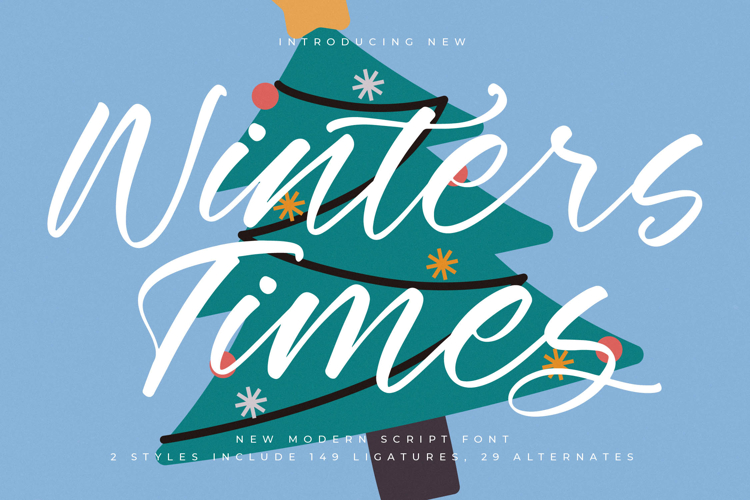
Winters Times - New Modern Script Font
Unleash a new realm of creative expression with Font Winters Times - New Modern Script Font Script, a truly captivating addition to any designer's toolkit. This modern script font exudes an undeniable sense of handcrafted elegance and fluid sophistication, transforming ordinary text into visually stunning artistry. Its natural, expressive flow and consistent, inviting strokes make it ideal for projects demanding a yet polished touch, ensuring your designs resonate with genuine warmth and style.
Experience unparalleled typographic flexibility with Font Winters Times - New Modern Script Font Script. Beyond its aesthetic appeal, this font comes loaded with rich typographic options, including an impressive collection of 149 ligatures and 29 alternates, allowing for truly authentic script customization and dynamic composition. With its extensive multilingual support, Font Winters Times - New Modern Script Font Script adapts seamlessly across global markets, making it incredibly versatile for international projects and ensuring your message is beautifully conveyed worldwide.